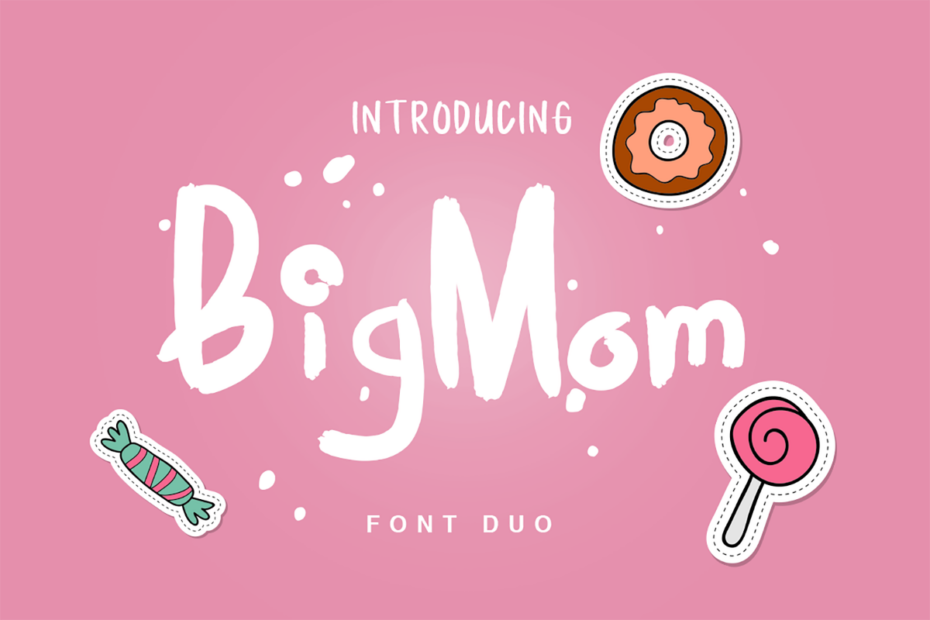
The Ultimate Duo for Designers: BigMom Font
Remember that moment when you’re working on a project and you just can’t seem to find the perfect font to match your vision? You scroll through countless options, but nothing seems to capture the essence of your design. That’s where the BigMom Font Duo comes in – a fun script and a gorgeous sans that will elevate your designs to the next level.
BigMom Font is more than just a font duo; it’s a game-changer for designers. With its unique blend of playful and sophisticated styles, it’s the perfect addition to any project. Whether you’re working on a branding campaign, a social media graphic, or a web design, BigMom Font is sure to add that extra oomph you need to make your design stand out.
BigMom Font Key Features
- Font Family: BigMom is a unique, modern sans-serif font with a distinctive style.
- Unique Characteristics: BigMom features a unique blend of geometric and organic shapes, with a focus on legibility and readability.
BigMom Font Review
Overall, I was quite impressed with the BigMom font. Here’s what caught my attention:
- ✨ Unique aesthetic: BigMom has a distinct, quirky feel that sets it apart from other fonts.
- ✨ High legibility: Despite its unconventional design, the font is surprisingly easy to read, even at smaller sizes.
- ✨ Versatility: BigMom works well for both digital and print applications, making it a great choice for designers.
- ⚠️ Limited language support: BigMom may not be the best choice for languages that require a lot of special characters or diacritics.
- ⚠️ Not ideal for body text: While BigMom is great for headlines and titles, it may not be the best font for large blocks of body text.
Overall, I’d say BigMom is a solid choice for designers looking for a unique and eye-catching font. Just be aware of its limitations and use it judiciously. With the right application, BigMom can add a lot of personality to your designs.
Tips for Getting the Most Out of BigMom Font
BigMom Font is ideal for creative projects that require a unique and eye-catching font. Some tips for getting the most out of it include:
– Using it in bold or italic styles to add emphasis.
– Pairing it with other fonts to create a visually appealing combination.
– Experimenting with different font sizes and colors to create contrast.
BigMom Font is commonly used in:
– Social media graphics and advertisements.
– Print materials such as business cards and brochures.
– Digital products such as ebooks and courses.